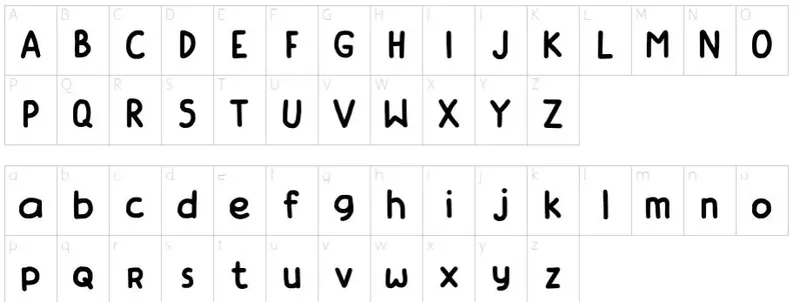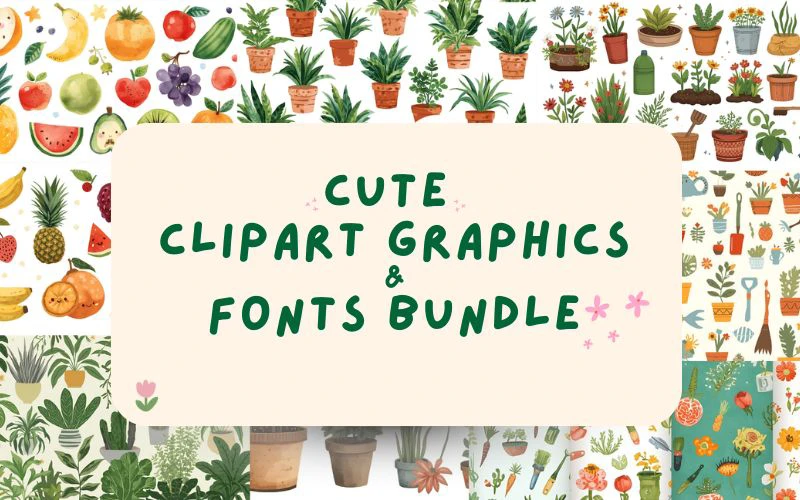
Designers know the struggle of mismatched clipart and fonts. That’s why DealFuel brings you the –
Cute Clipart Graphics & Fonts Bundle
A gorgeous collection of 156 hand-drawn cliparts, seamless patterns, adorable lettering phrases, and 2 beautiful handwritten fonts.
With themes like whimsical rainbows, fruity fun, floral elegance, and cozy lifestyle elements, this bundle helps design across seasons and styles.
The ready-to-use cliparts and patterns make it easy to design digital planners, stickers, cards, and social media visuals. Meanwhile, the included fonts add a personalized, handmade touch.
Each element in this bundle is designed to infuse your work with color, charm, and personality.
Whether you’re printing on T-shirts, creating digital stationery, or designing a product, this bundle ensures your creativity shines bright and is always cute.
• Design digital planners, stickers, and scrapbooking layouts.
• Create branding materials, business logos, and packaging.
• Craft social media posts, banners, and digital ads.
• Produce print-on-demand merchandise, such as T-shirts, mugs, and tote bags.
• Design invitations, greeting cards, and stationery sets.
• Add charm to journals, posters, and printable art.
Handwritten Fonts:
• Saiden Font – a playful script font
• Bingah Font – a modern handwritten font